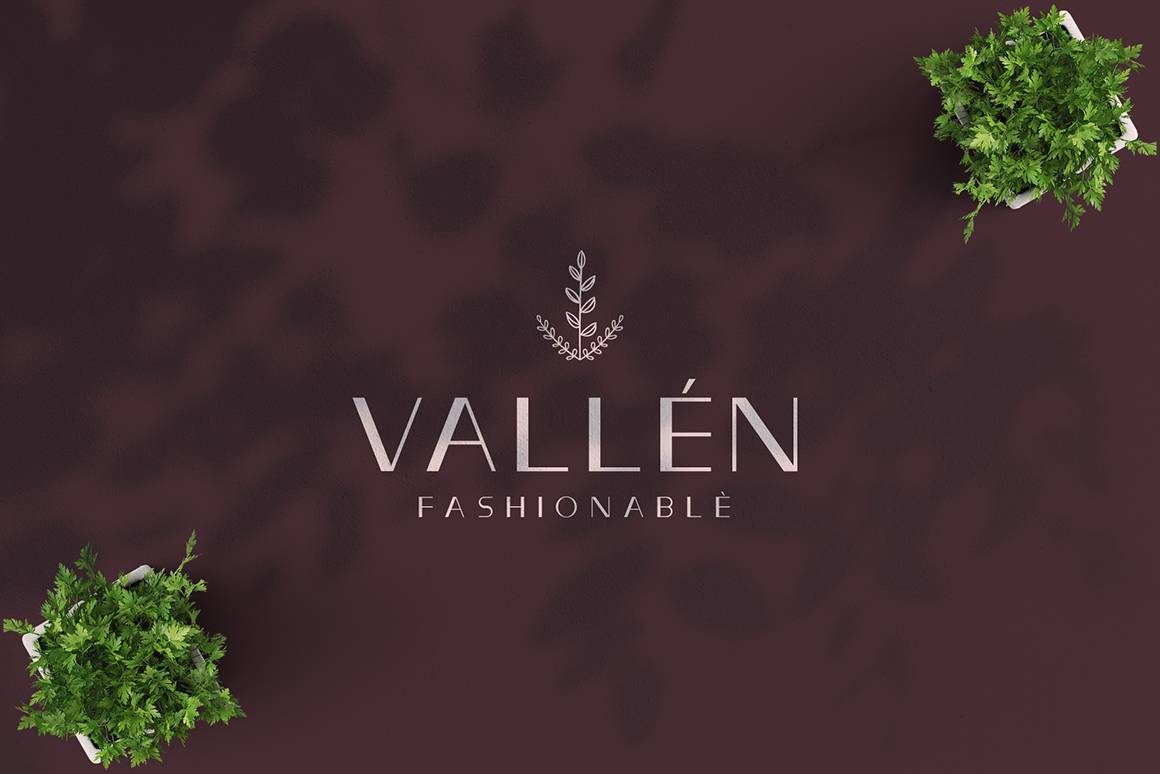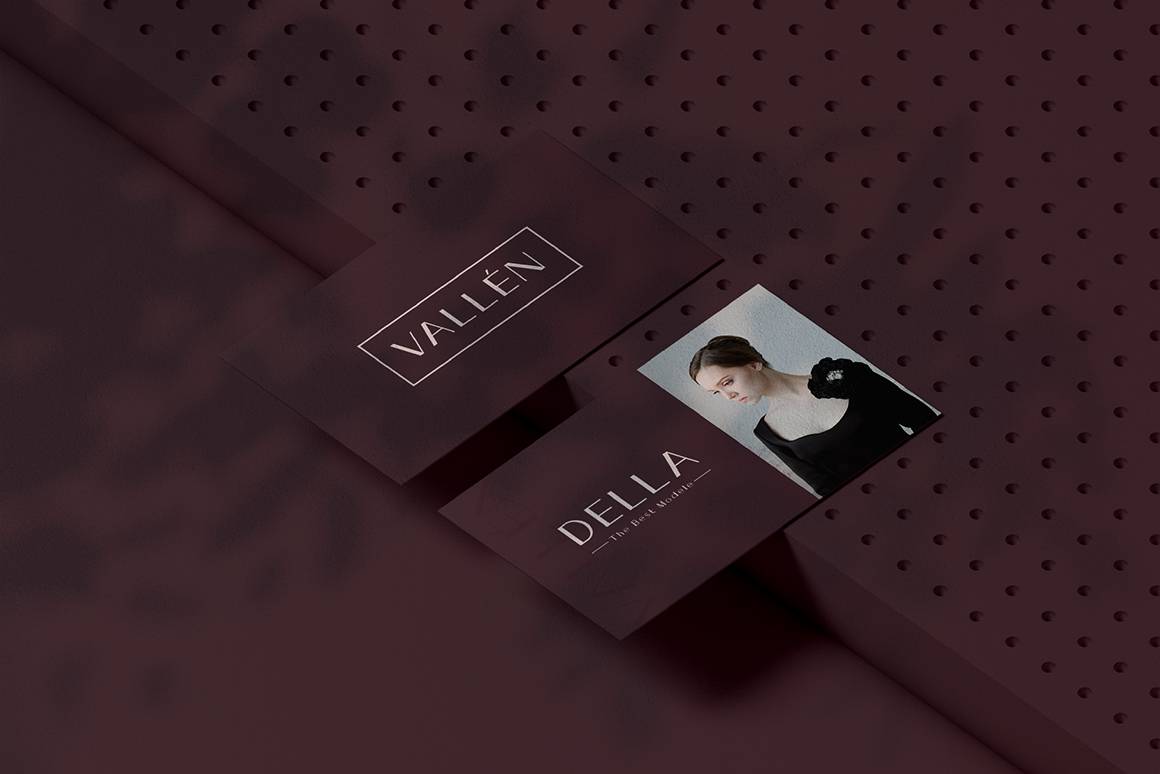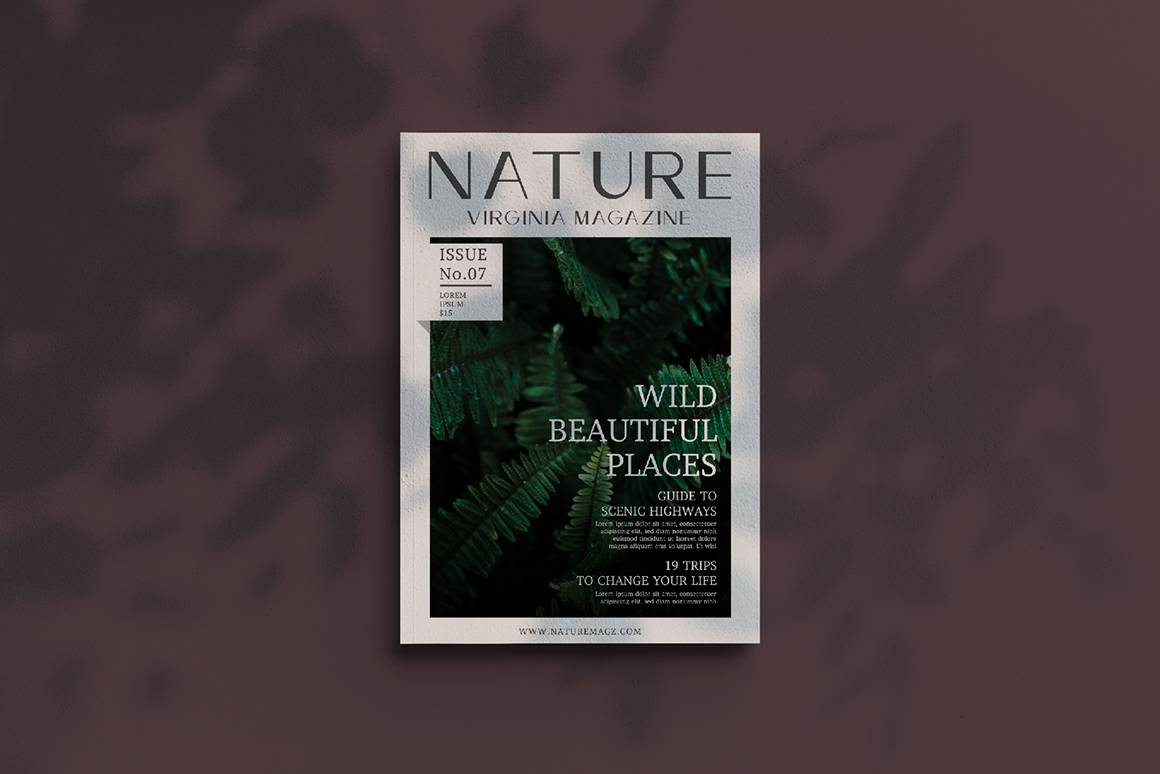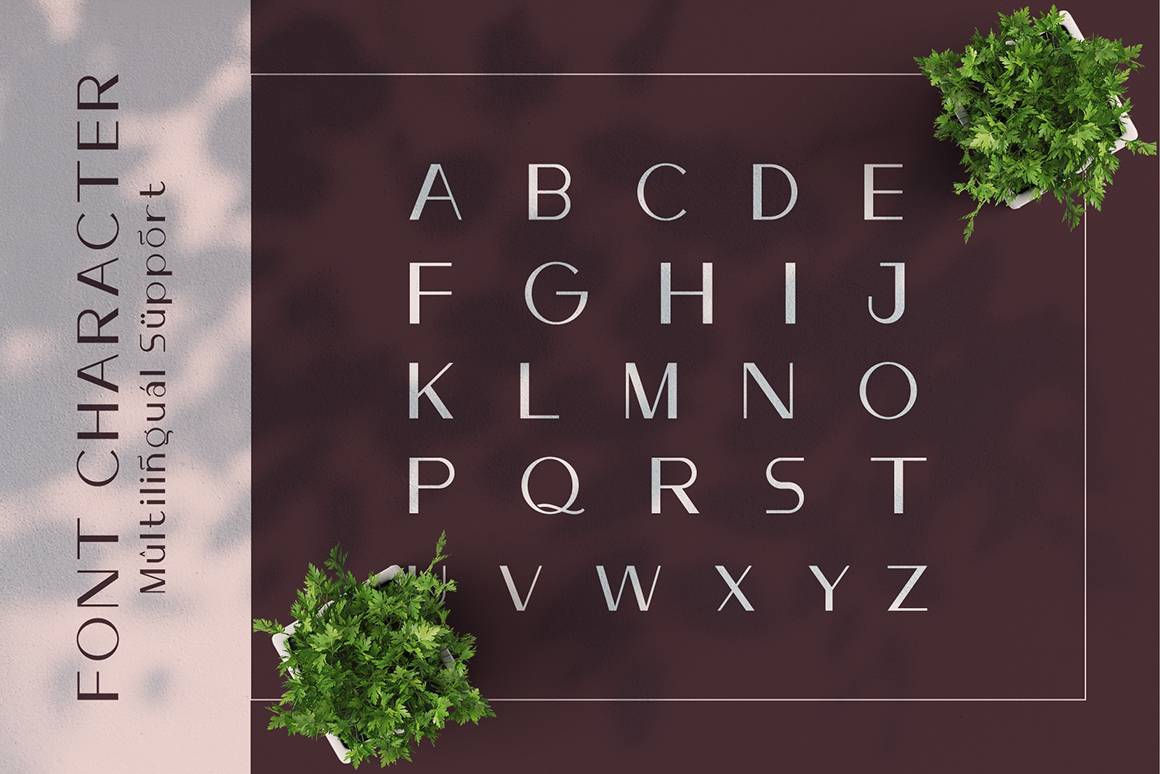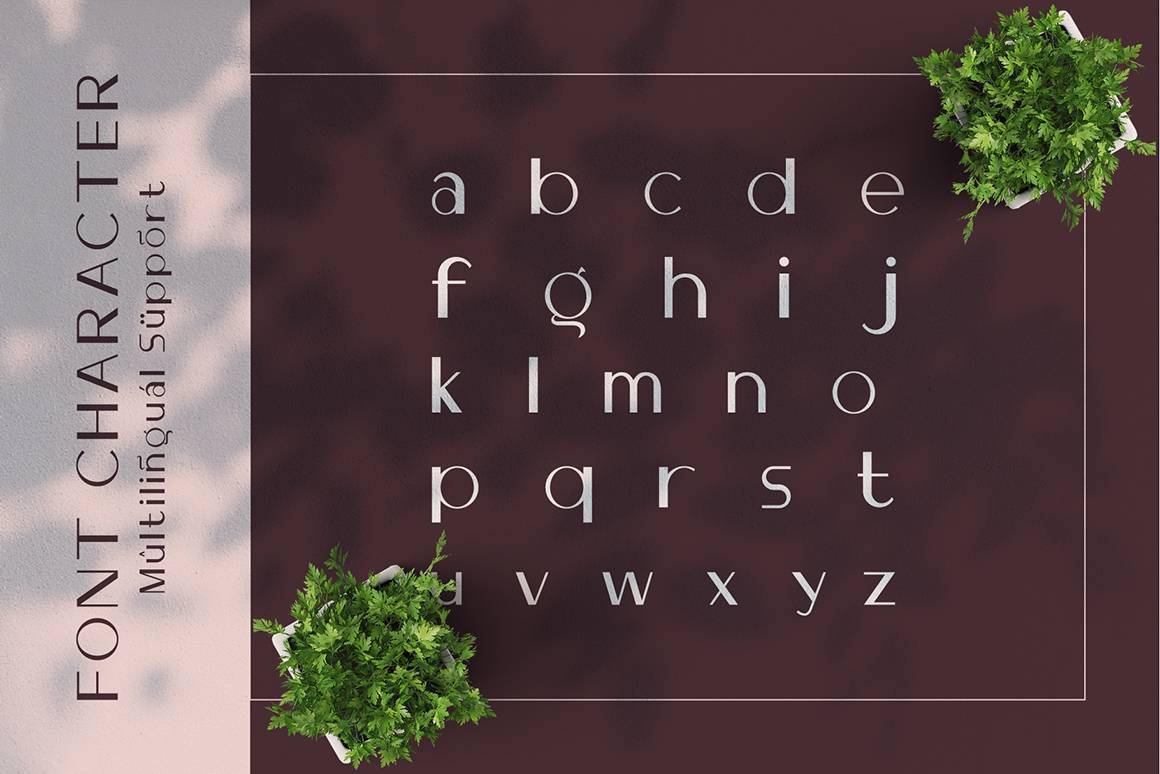
Vallèn Sans Font
Vallèn Sans Font is a minimalist and elegant sans serif typeface. This great typeface presents a feeling of refinement in both traditional and contemporary designs. This typeface makes for unique titles and logos in a luxurious and stylish look. Designed for large font display settings. It’s best for headlines, titles, posters, magazine titles, logos, advertisements, invitations, monograms, and wherever your creativity wants. This free typeface was designed by a talented Kreart Studio. If you like it don’t forget to check out the full version.